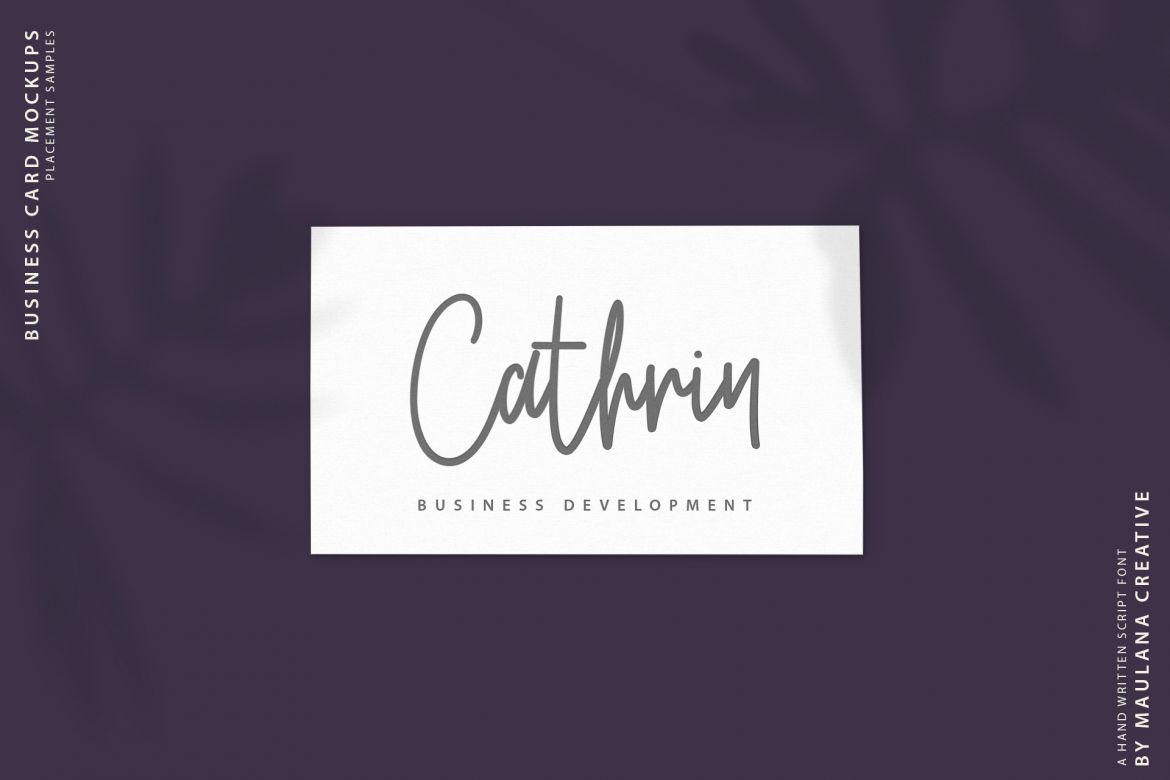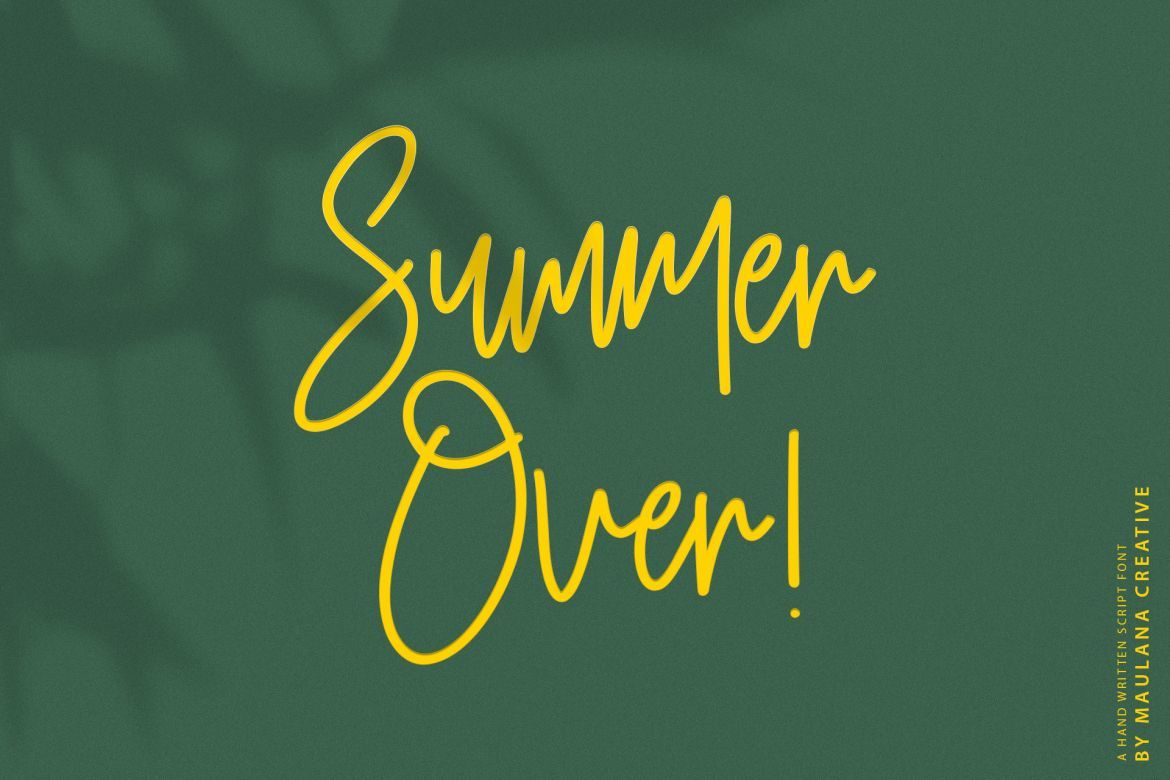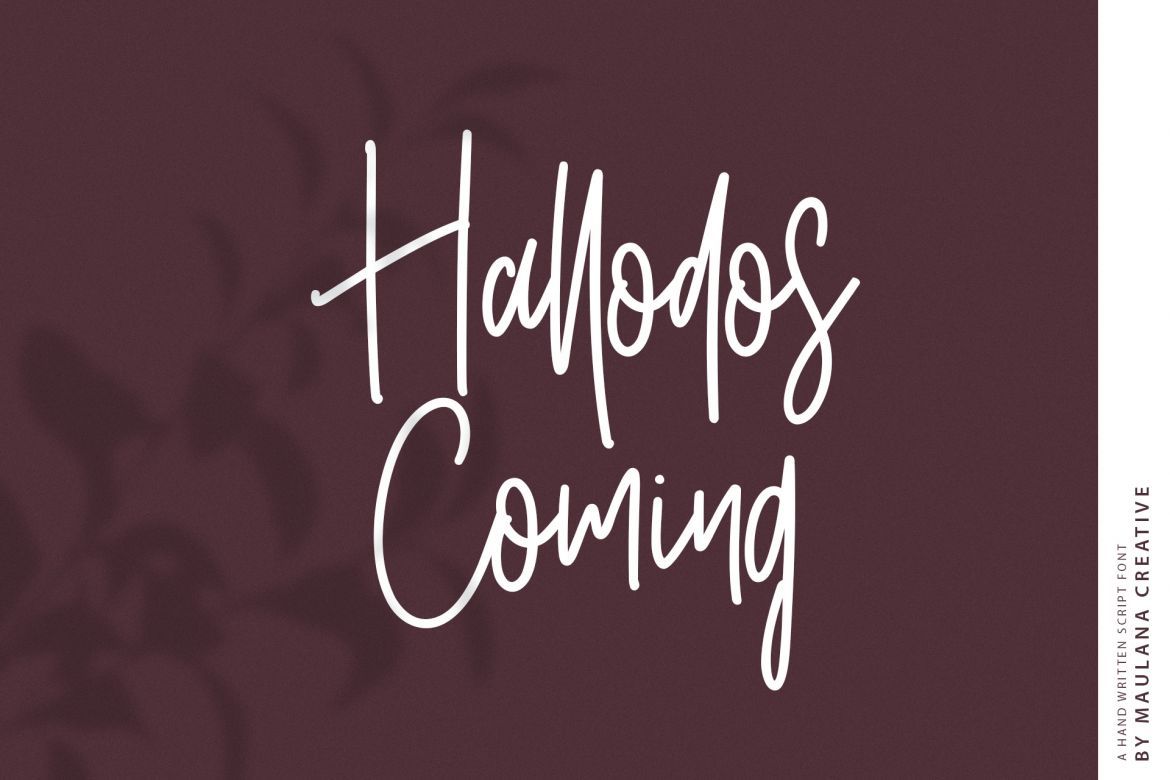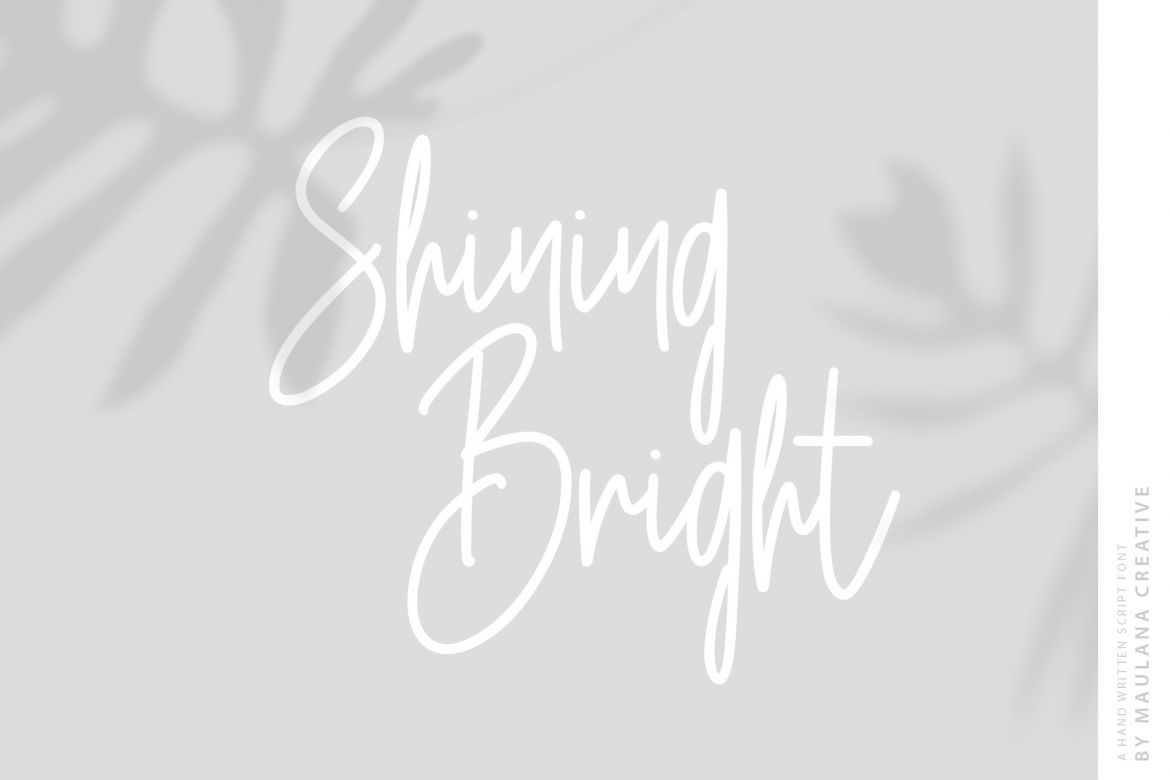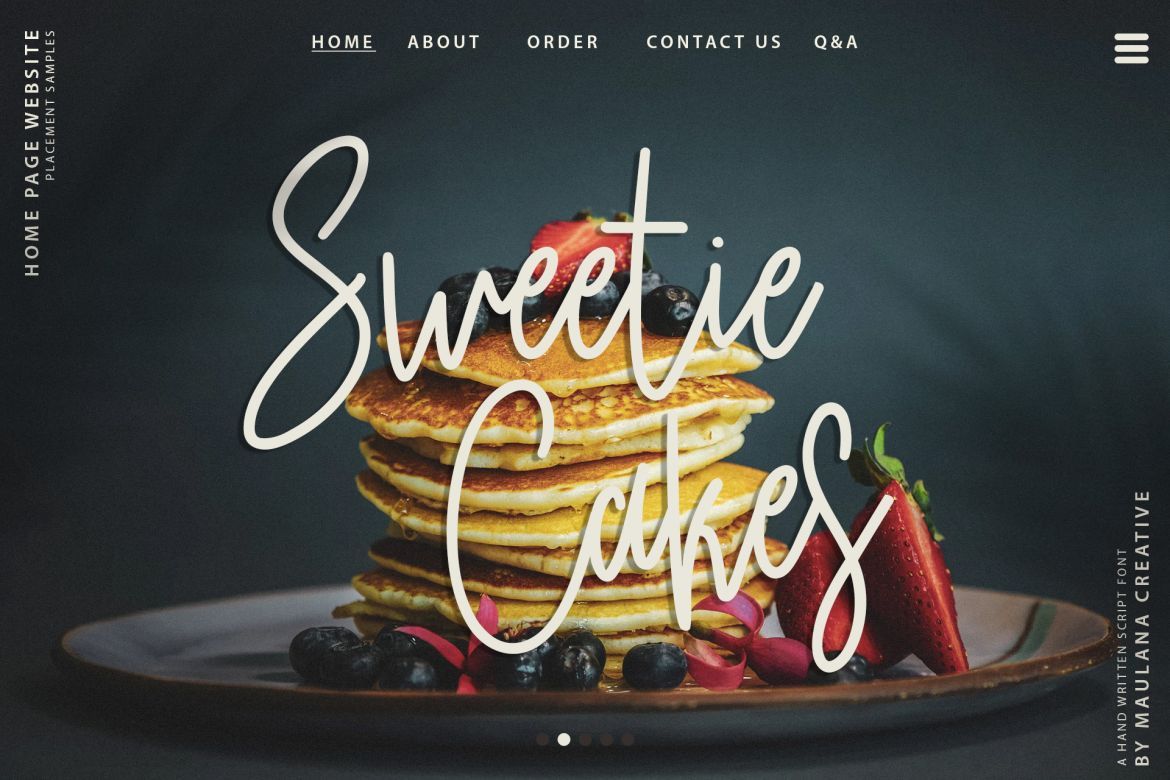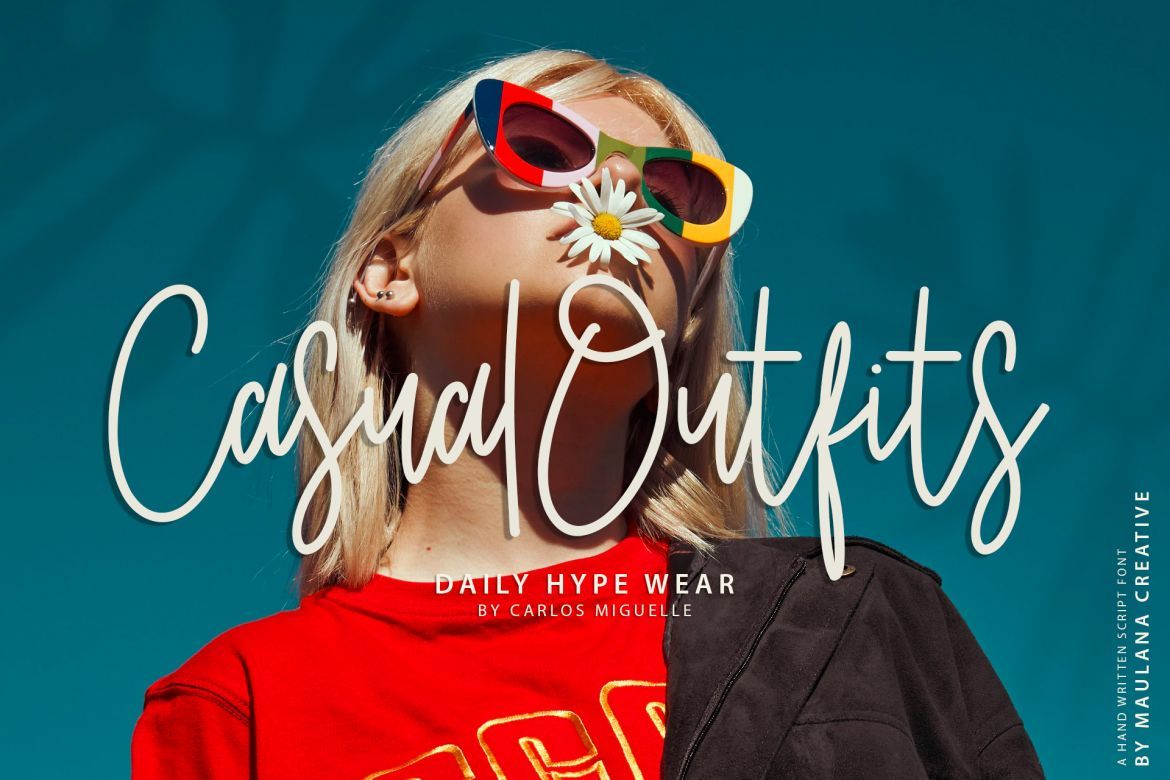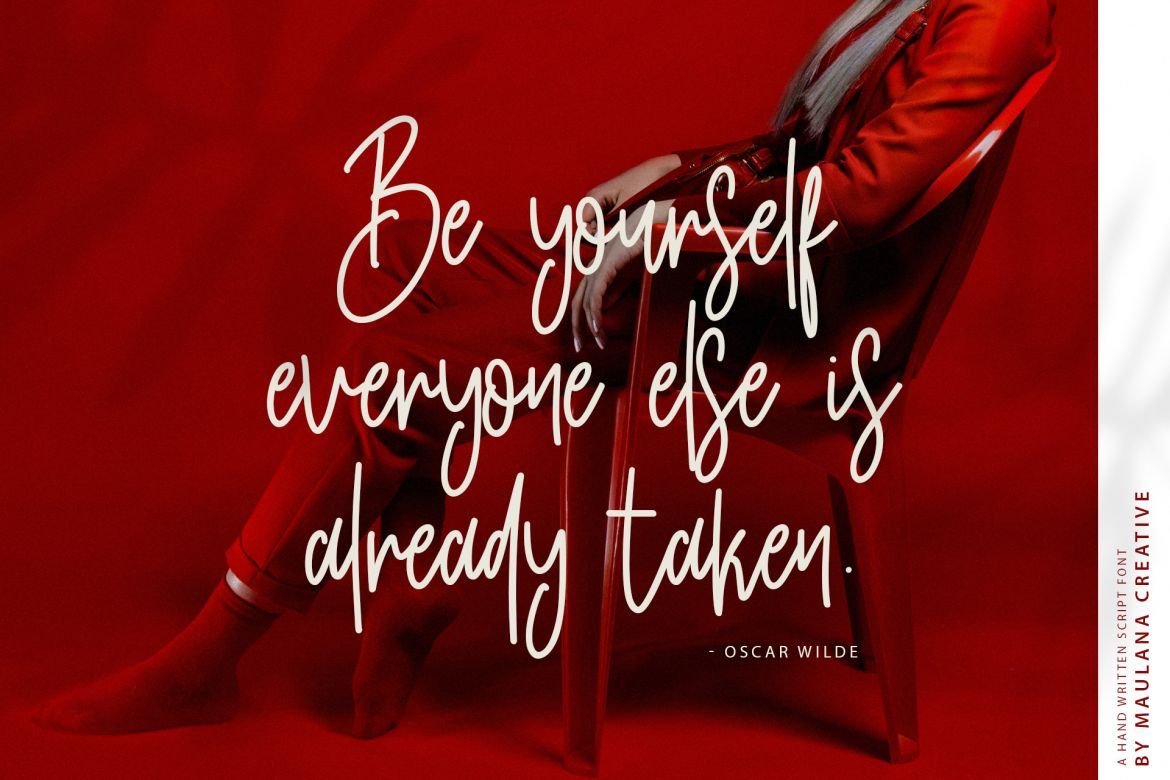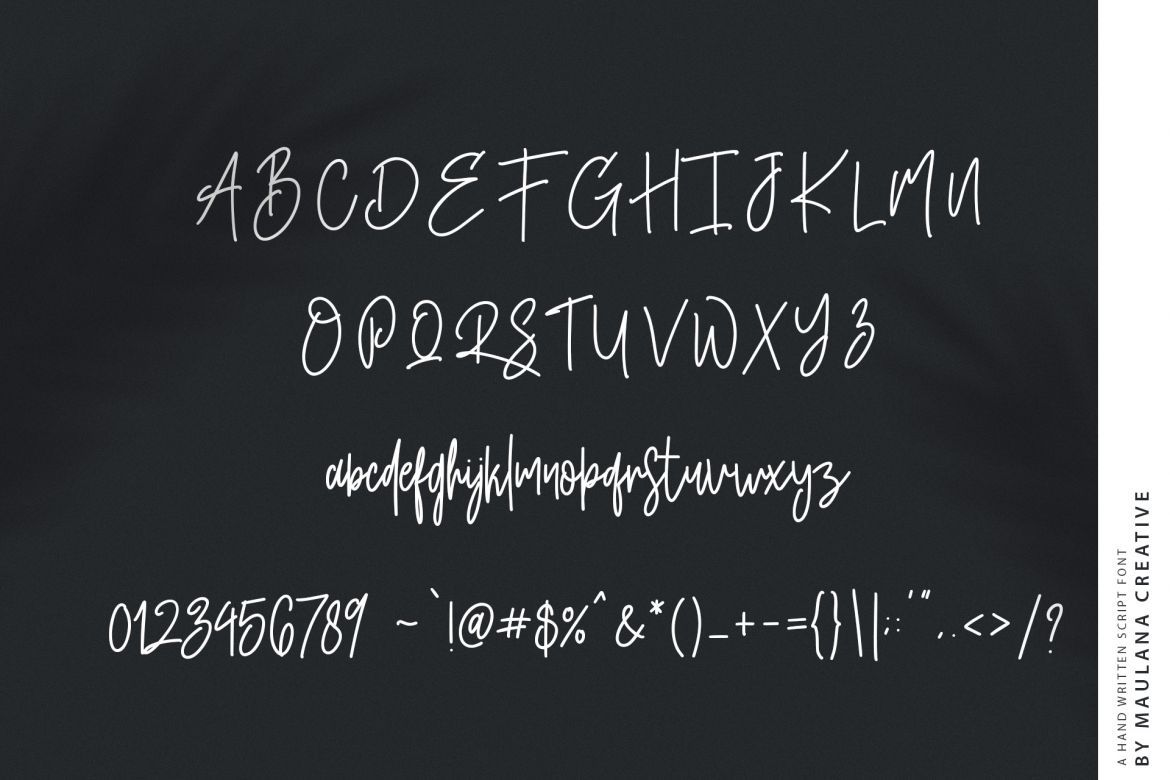
Rushtter Signature Font
Give your designs an authentic handcrafted feel. "Rushtter" is perfectly suited to signature, stationery, logo, typography quotes, magazine or book cover, website header, clothing, branding, packaging design and more.